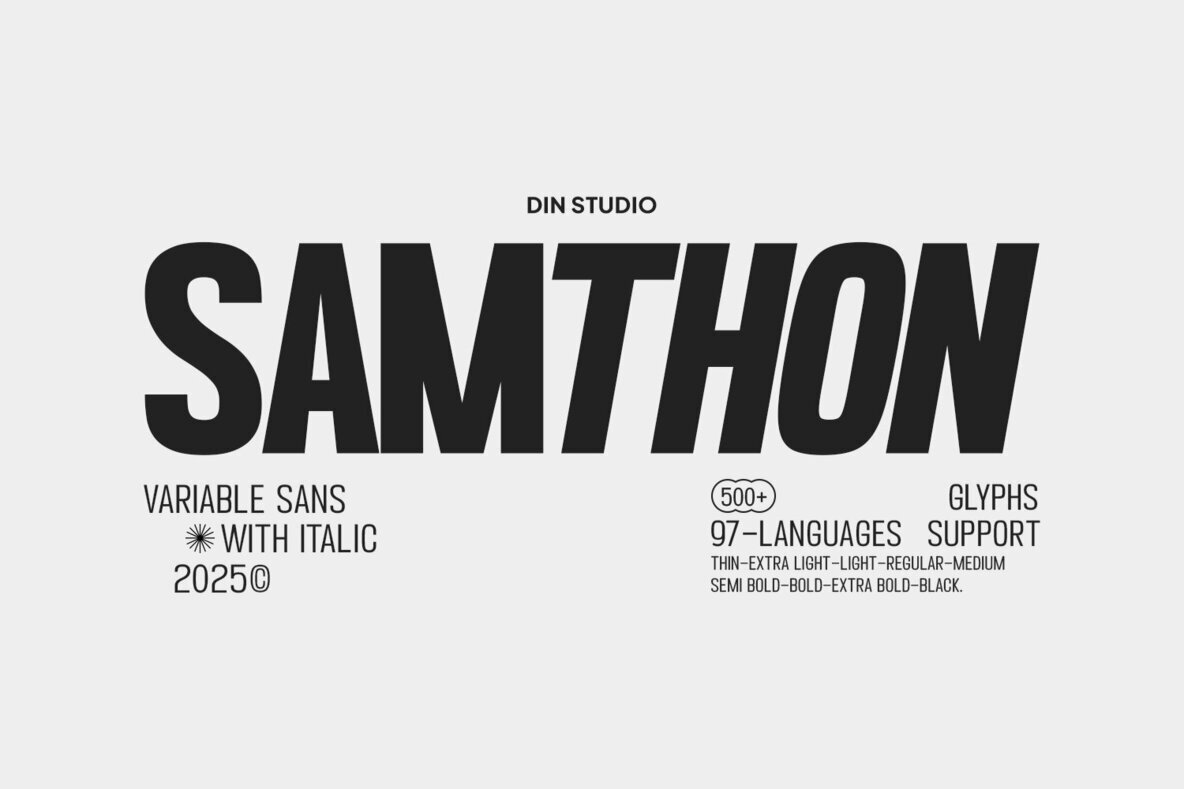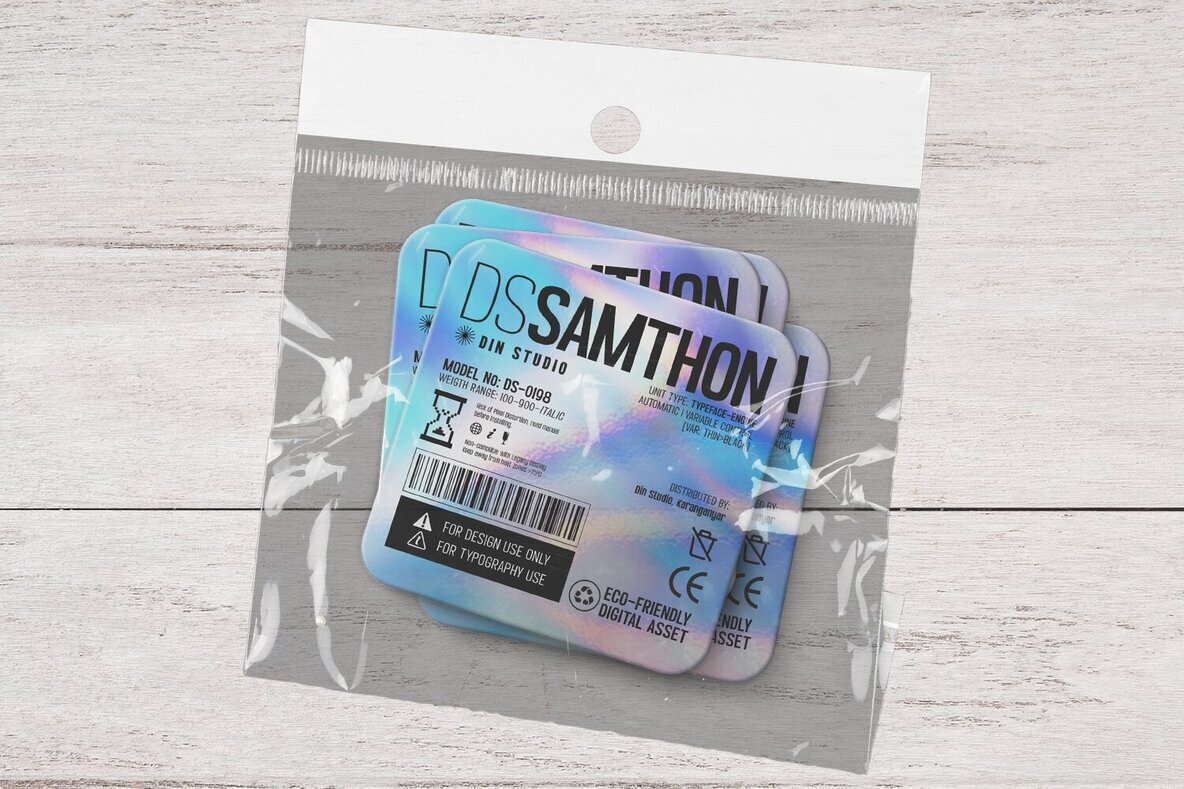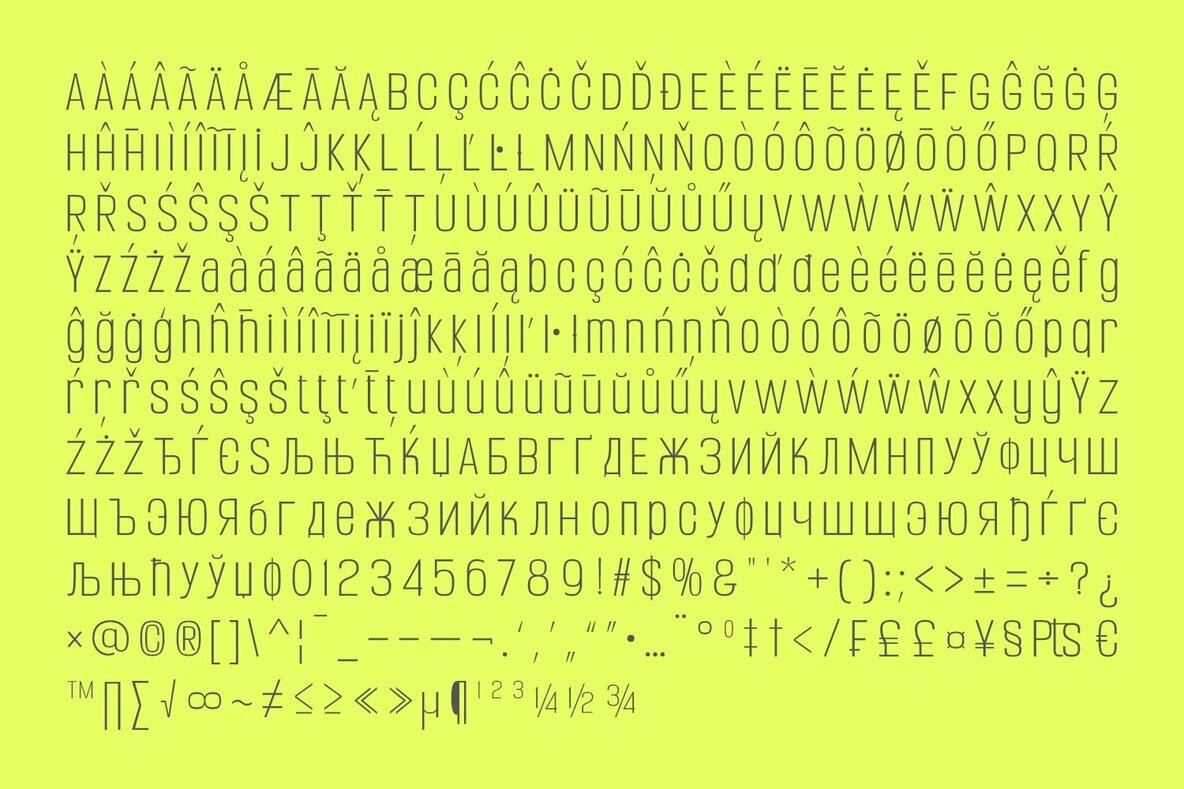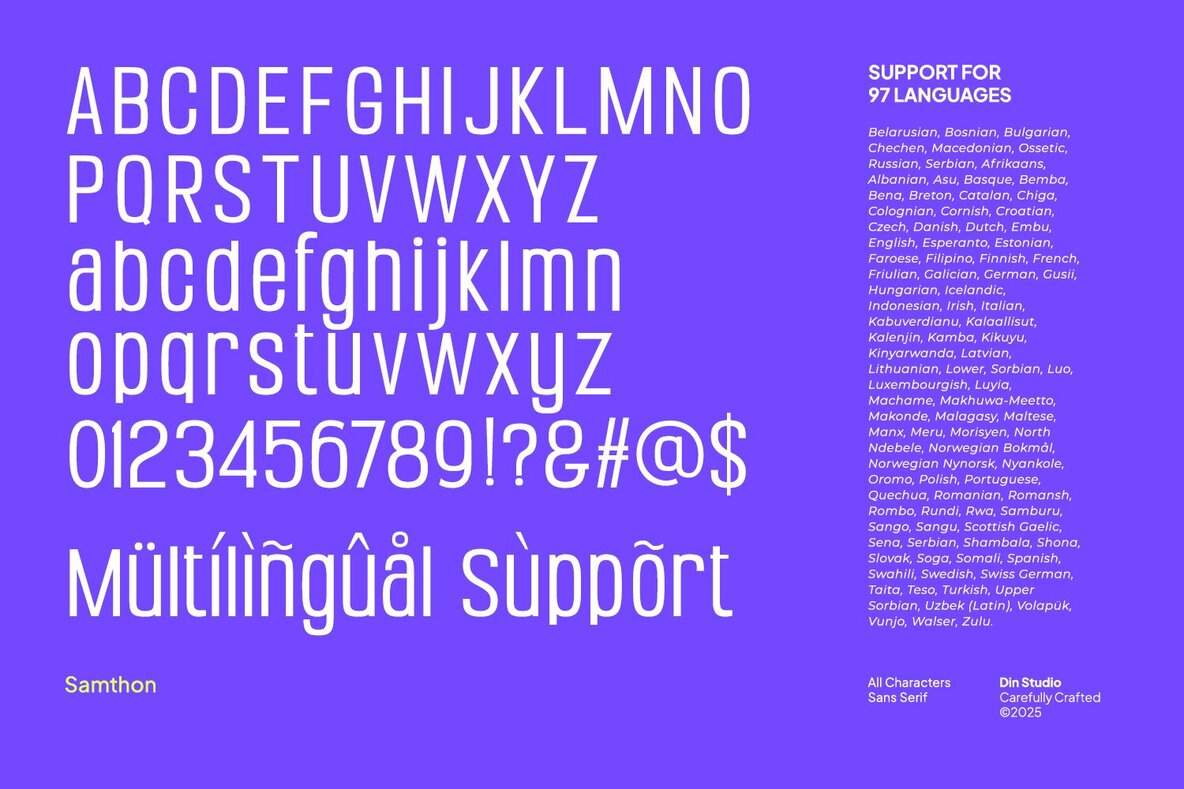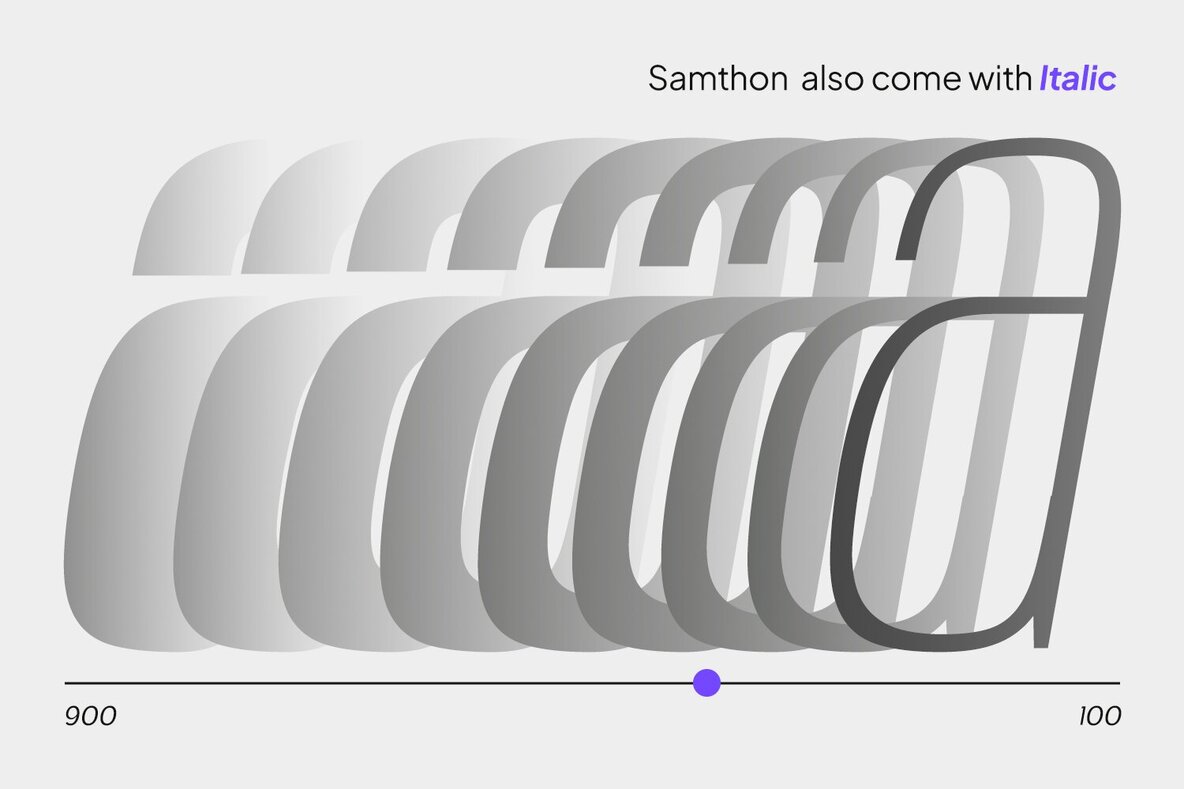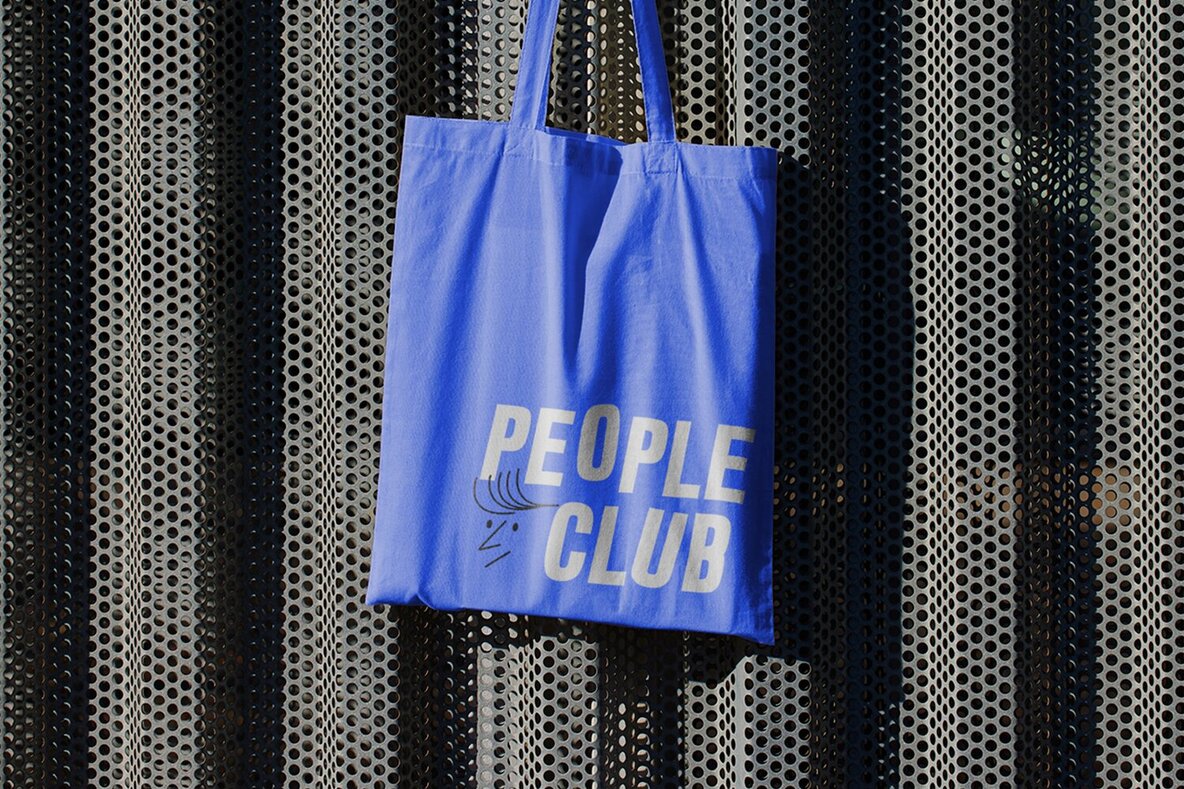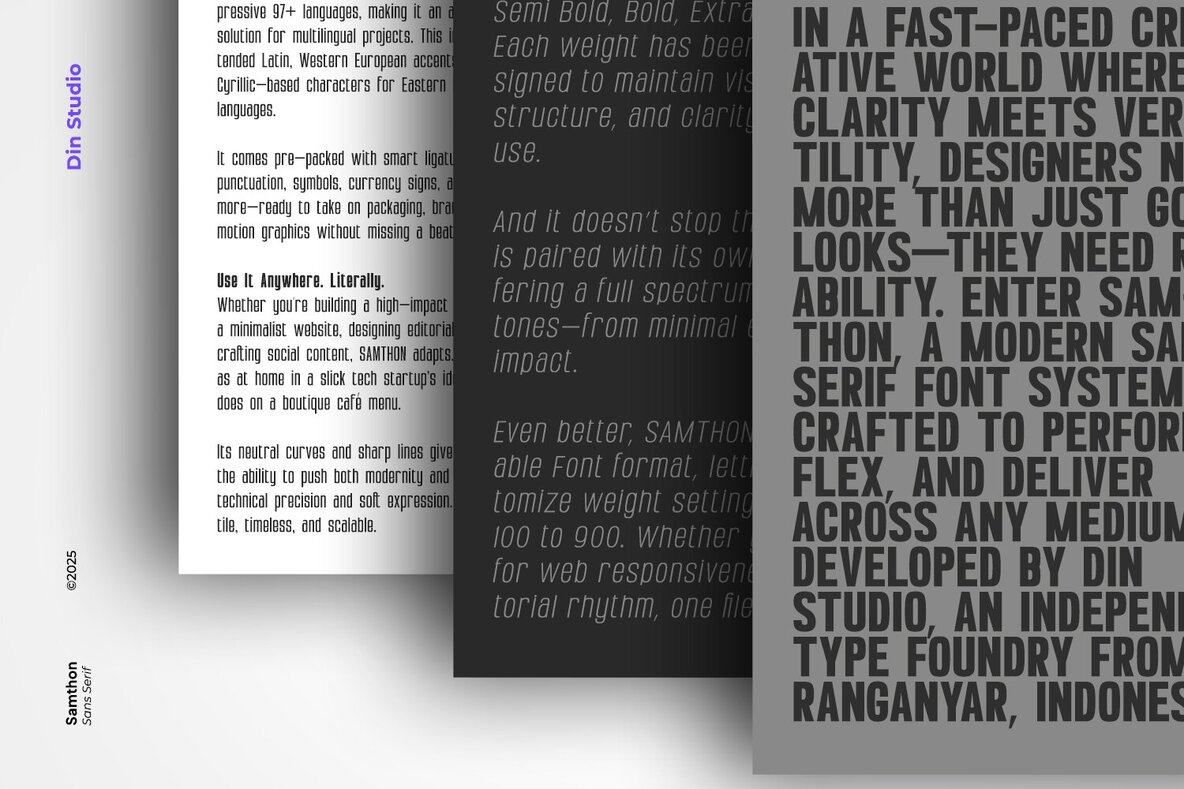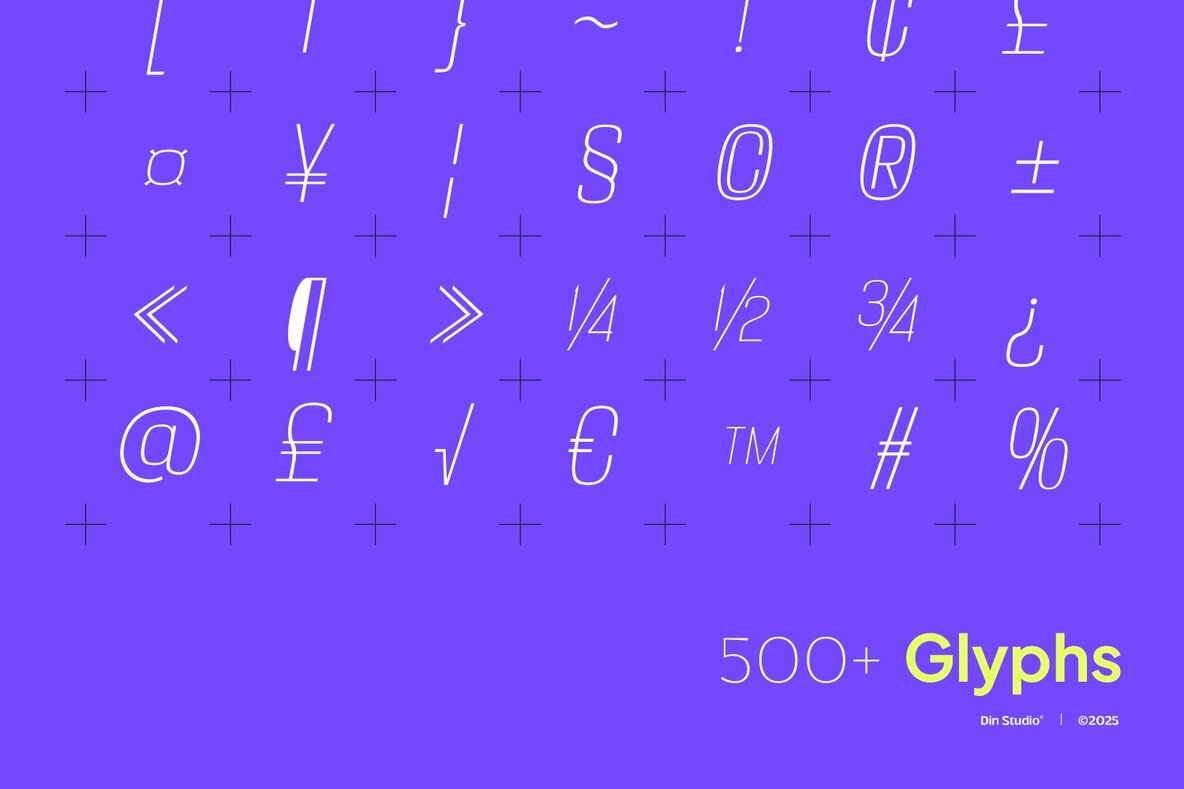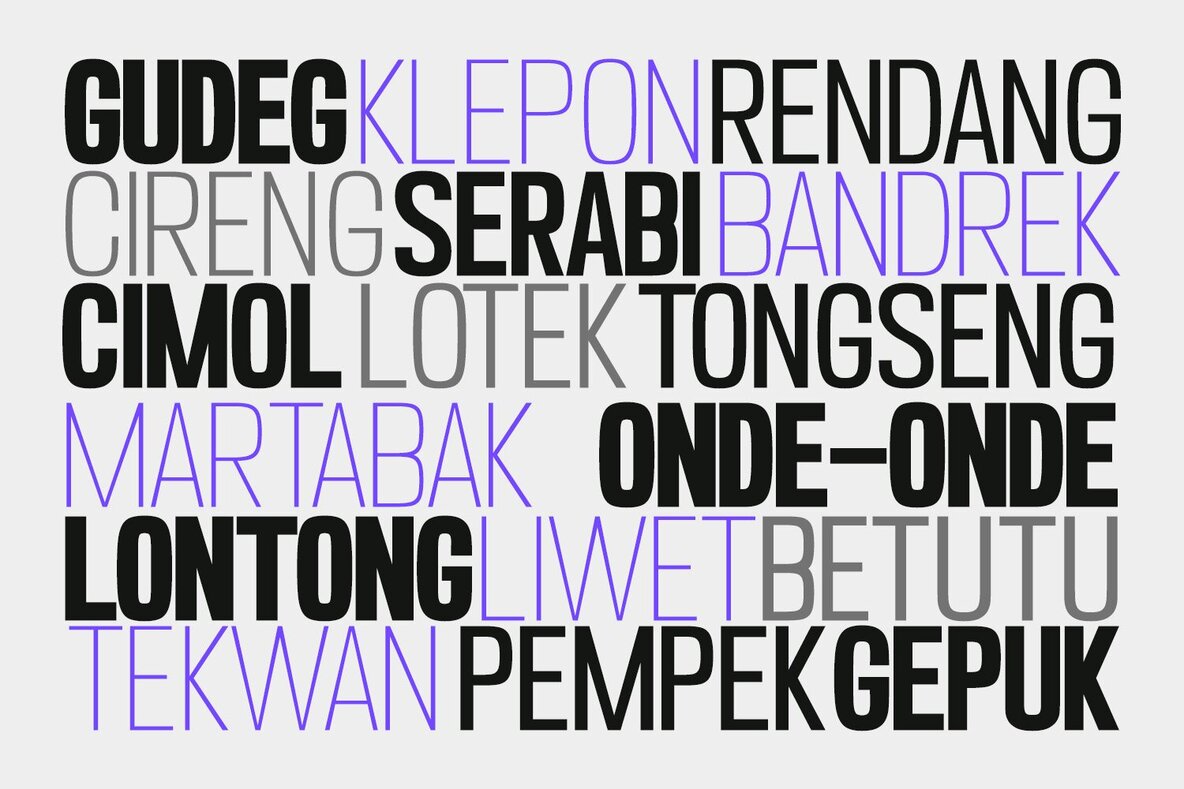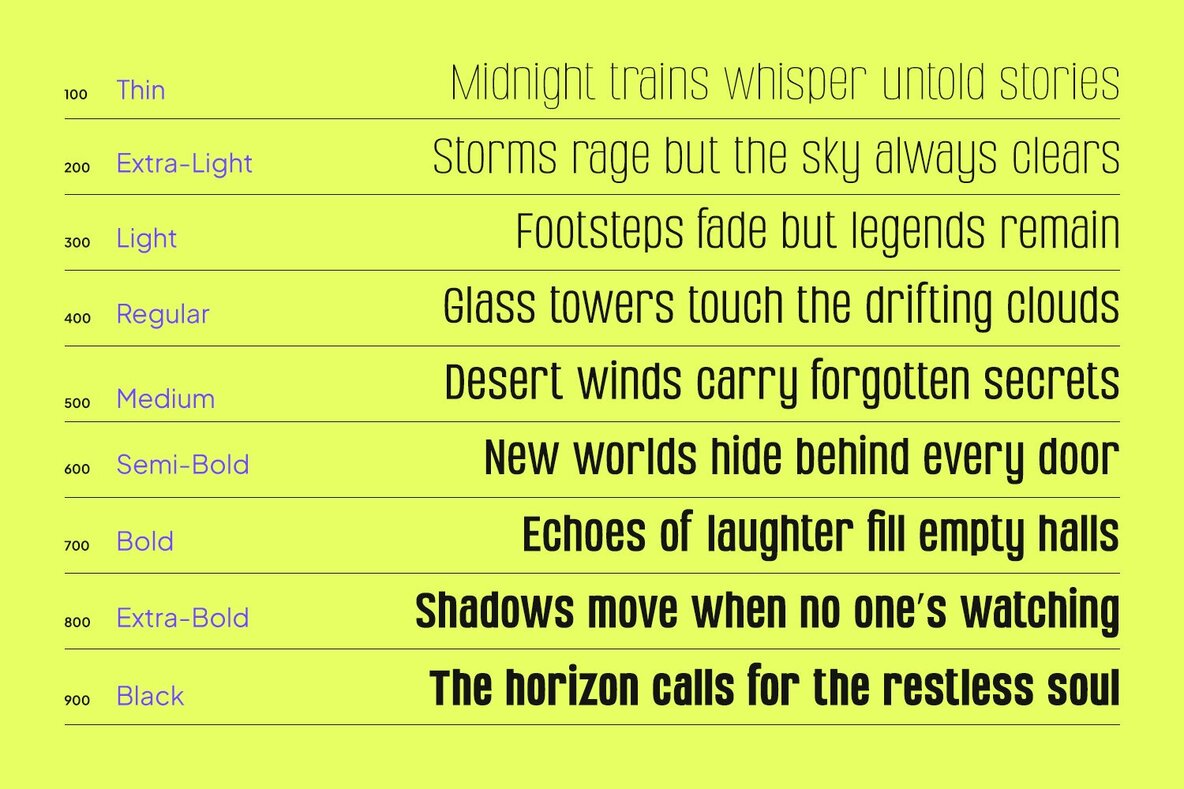
Samthon Font
Samthon stands as a modern neo-grotesque sans serif font family, distinguished by its tall characters and clean letterforms that end in horizontal terminals. Its tight apertures lend a confident and structured feel, making it ideal for a range of design applications. With its collection of 9 precise weights, italics, and full variable support for weight and slant, Samthon provides a substantial impact on your projects. Samthon is versatile across various design applications, from bold branding to packaging, posters, and editorials. For more ways to implement Samthon in your design work, explore its comprehensive font preview.Samthon: Neo-Grotesque Sans Serif with Precision